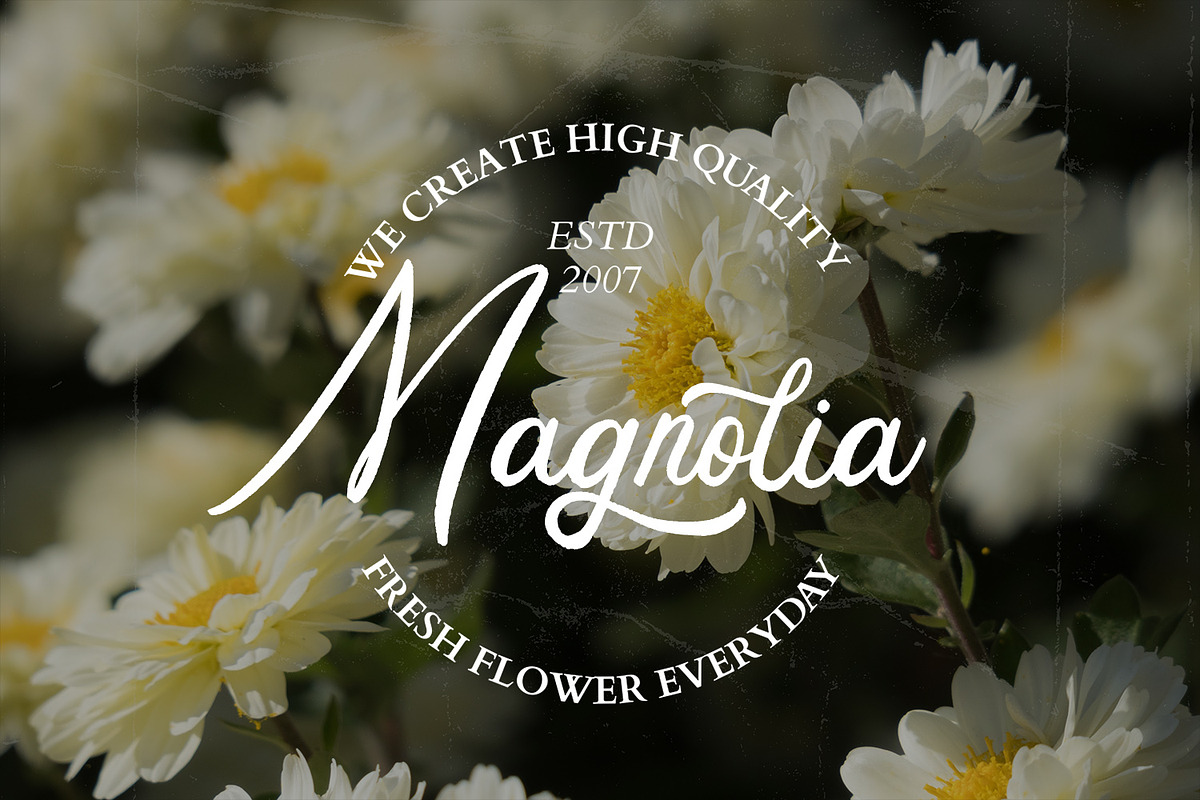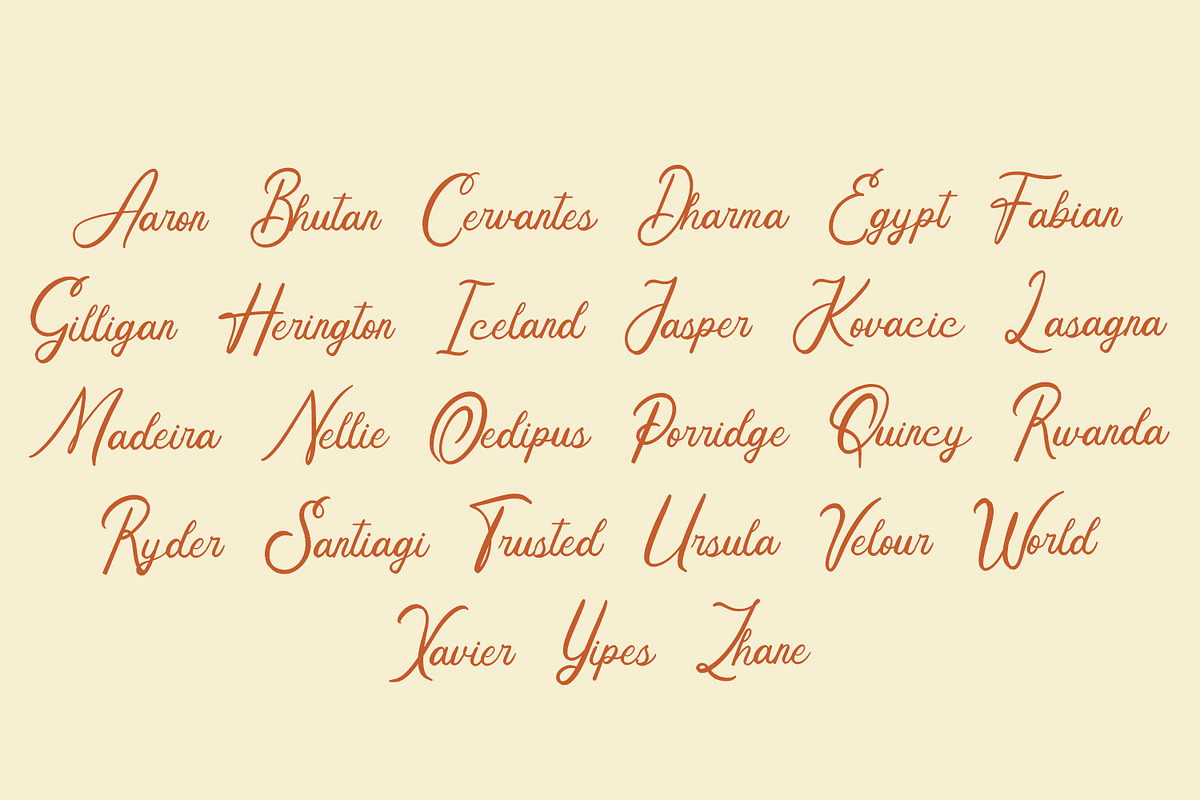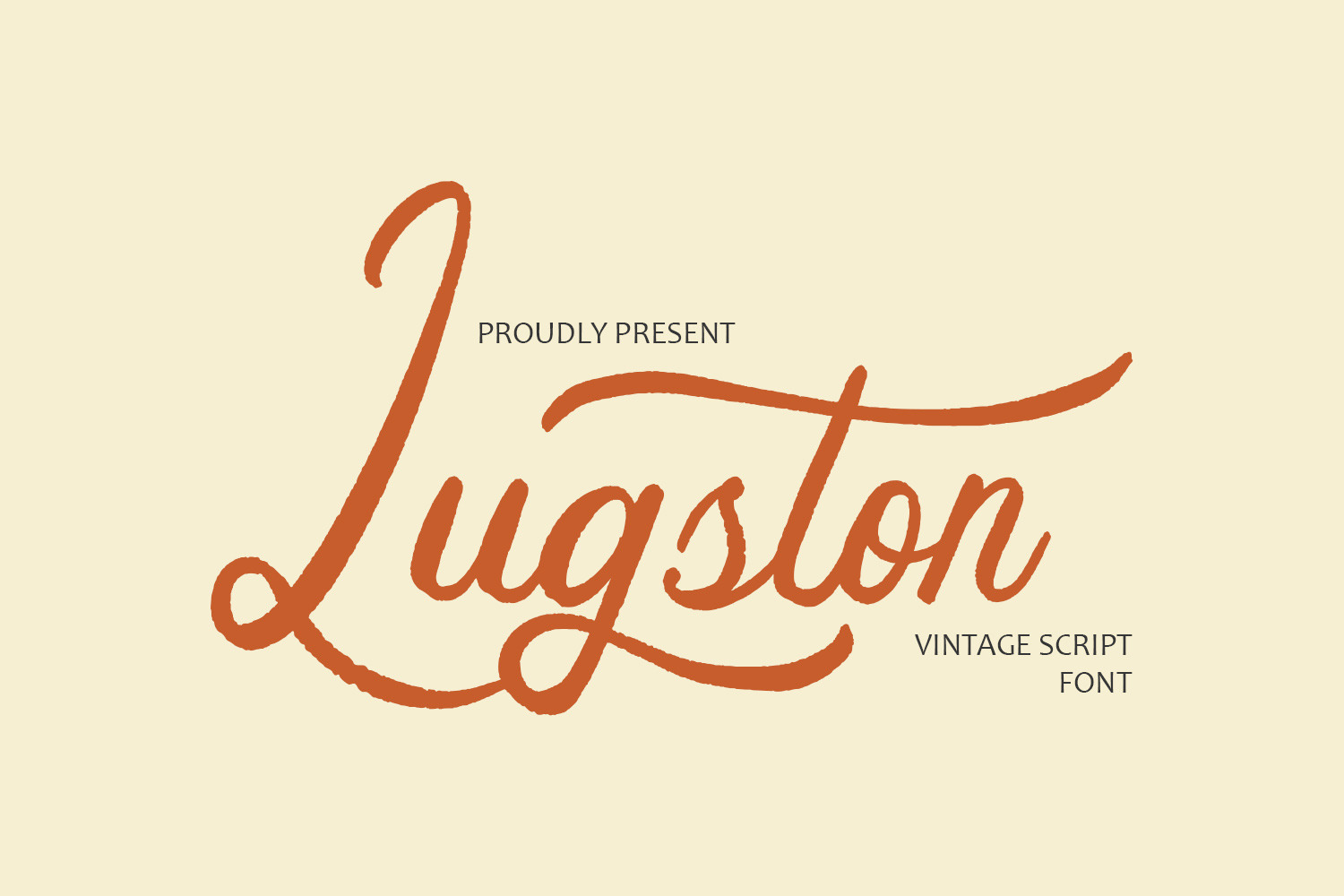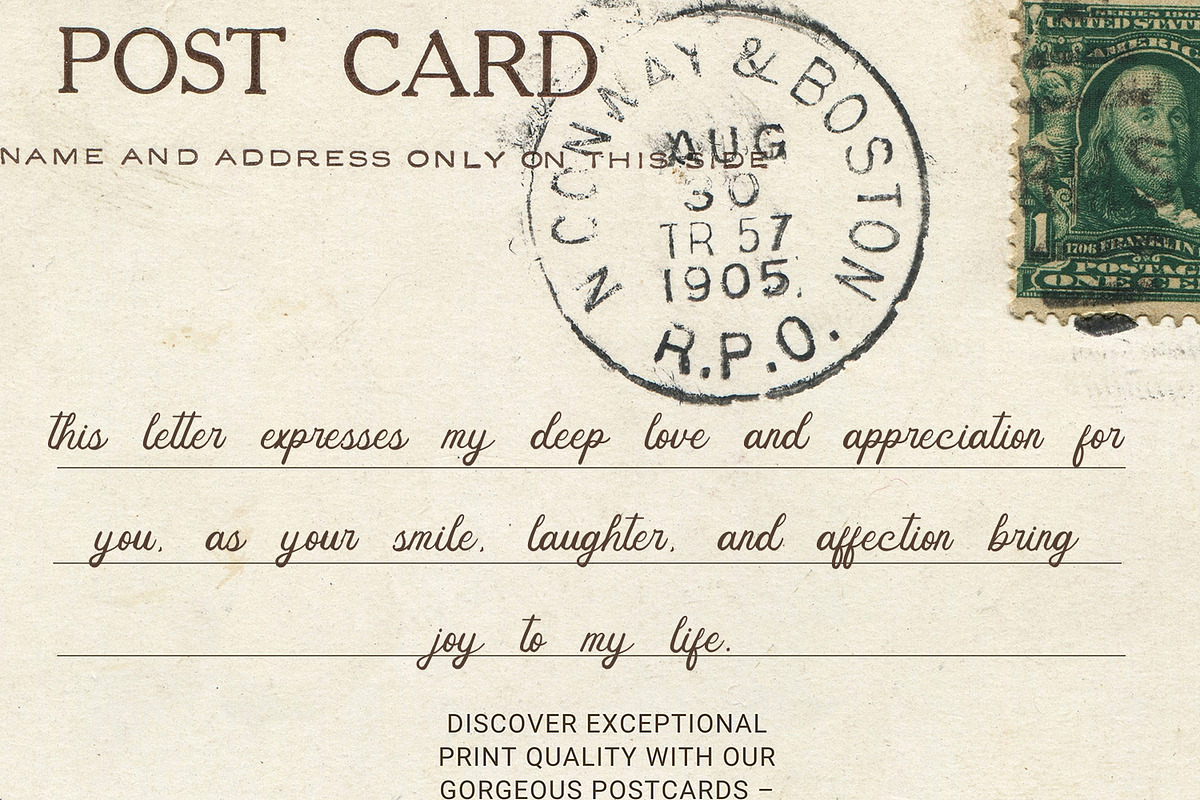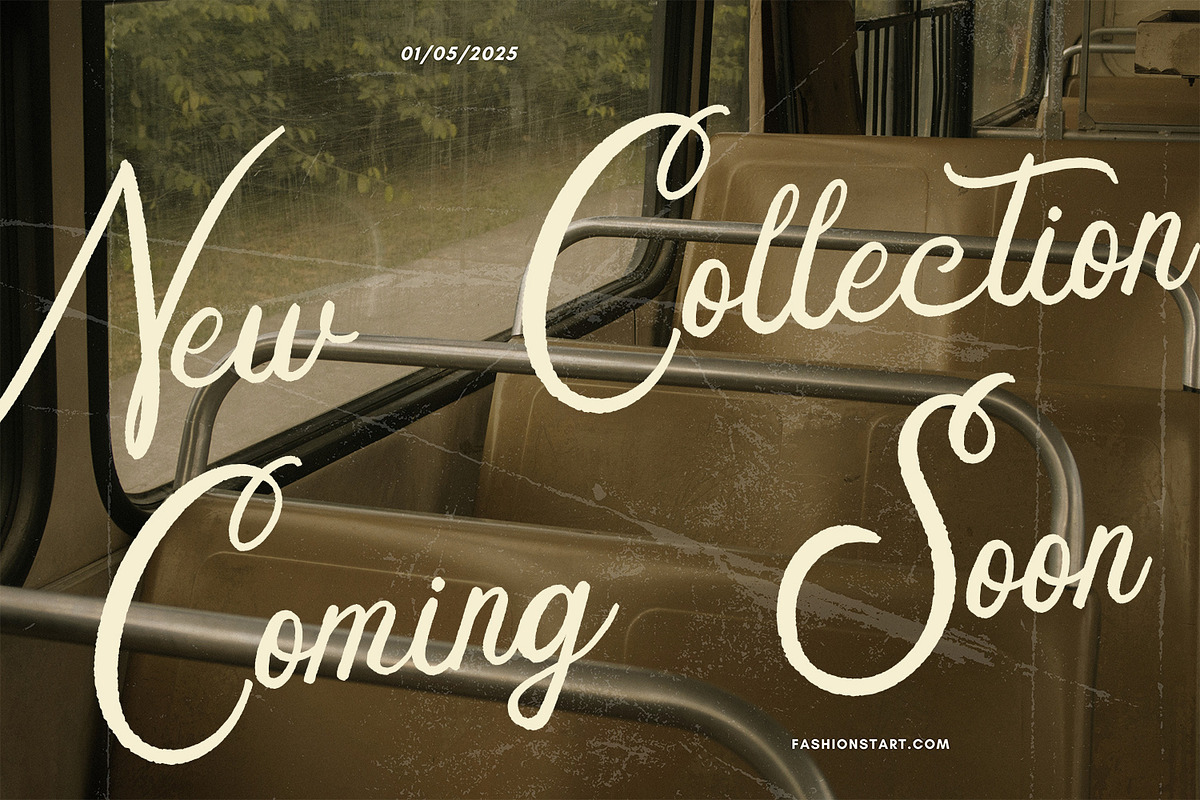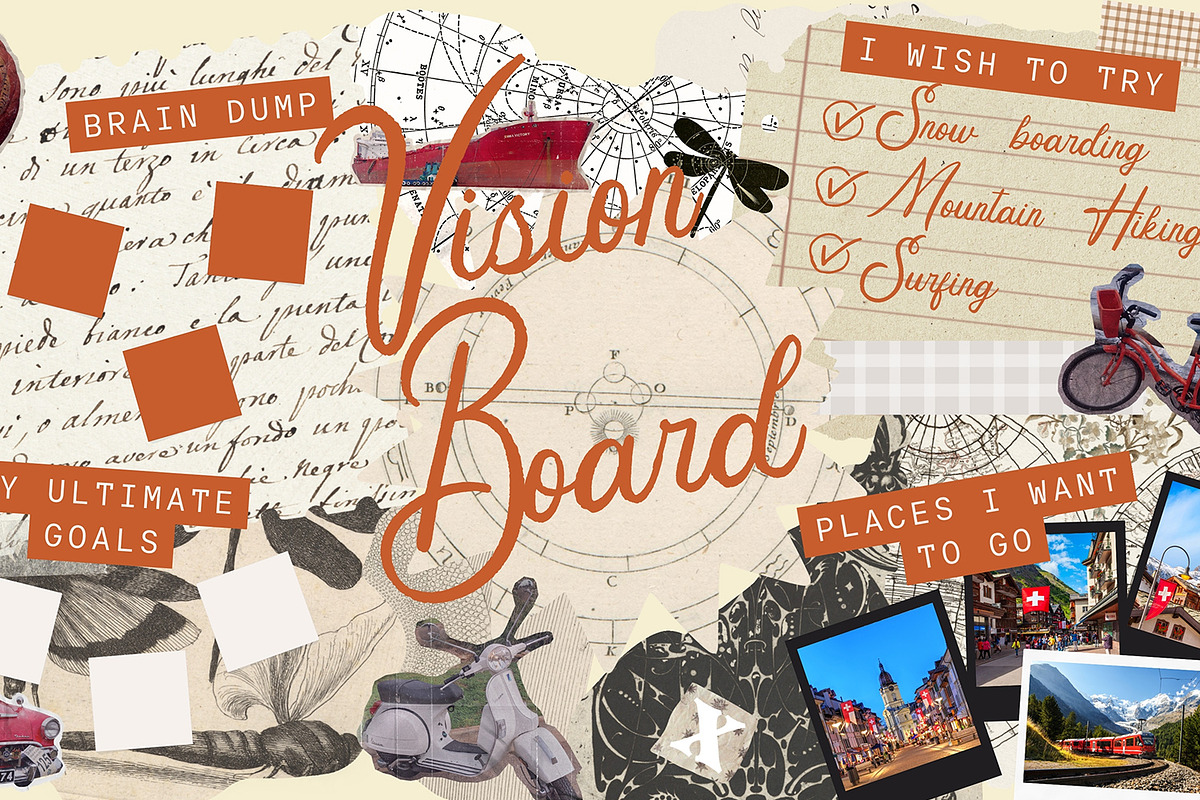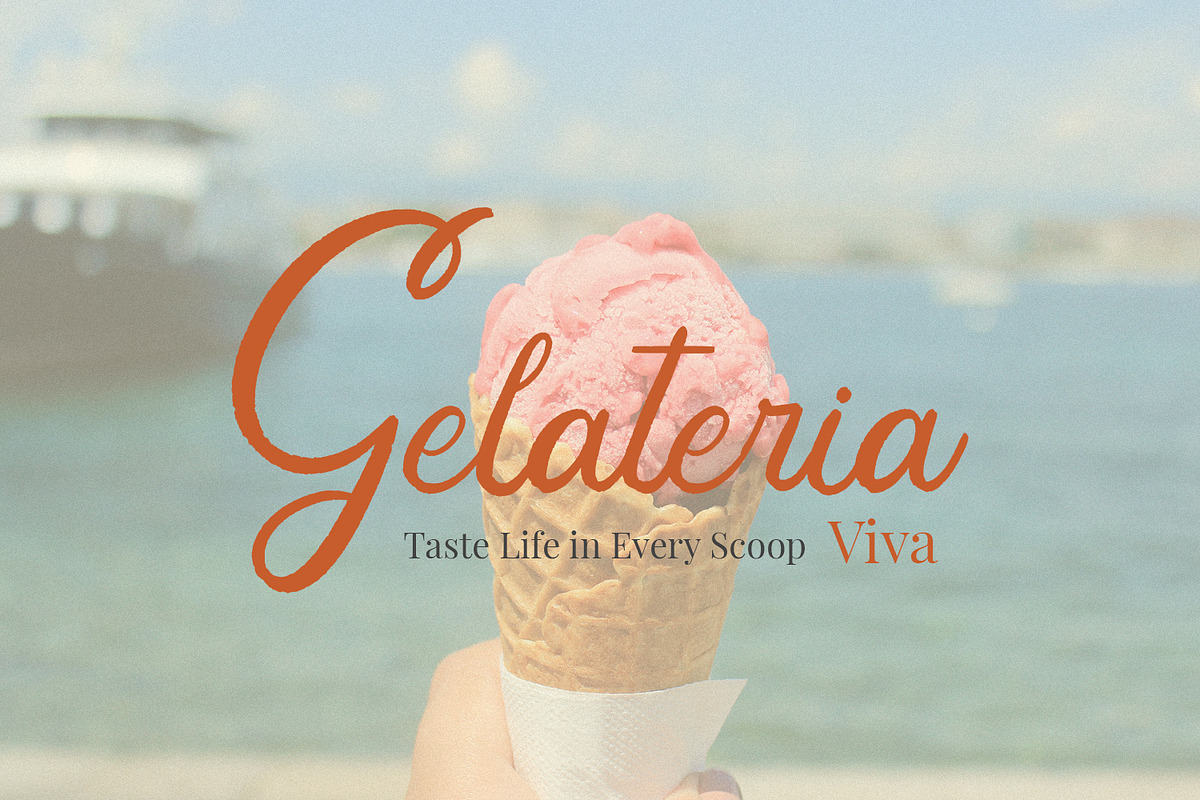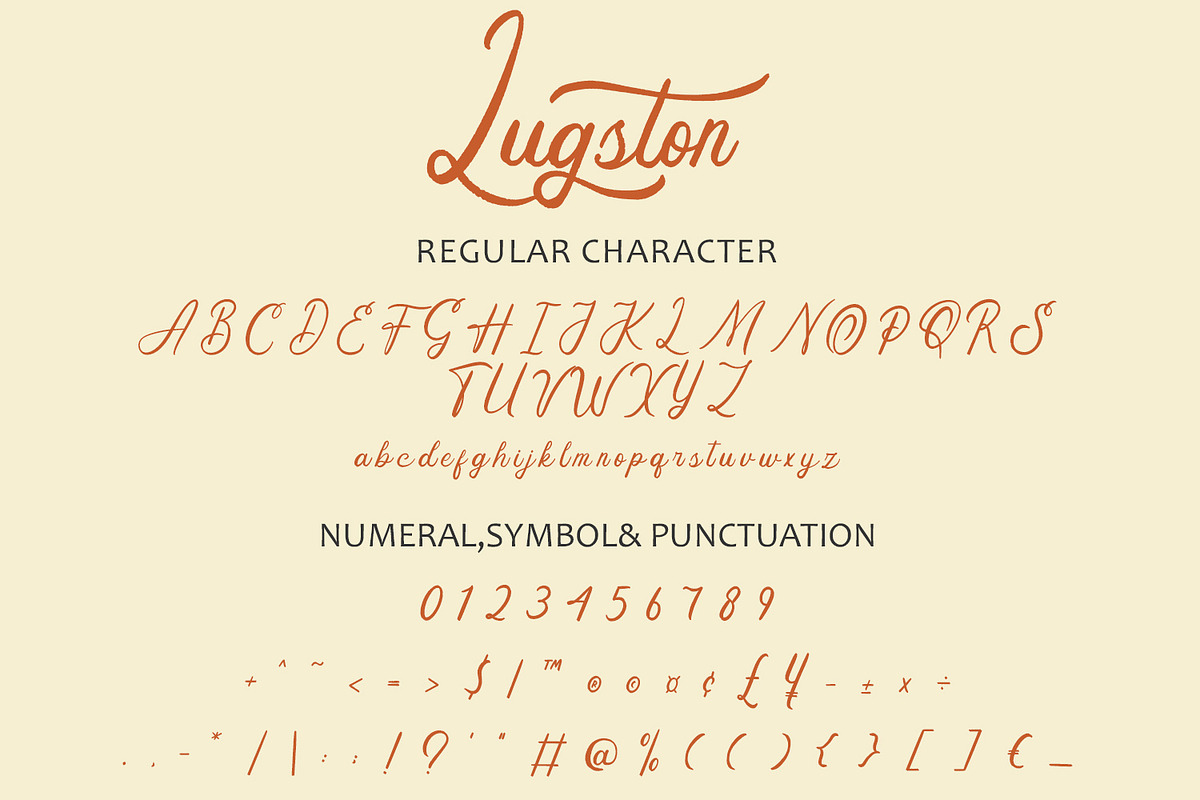
Lugston – Vintage Script Font
Description:
Lugston is a timeless vintage script font that captures the warmth and elegance of classic lettering. Perfect for logos, signage, packaging, and creative projects, it brings a nostalgic yet refined feel to your designs, making them stand out with character and sophistication.
Features : Uppercase and lowercase characters